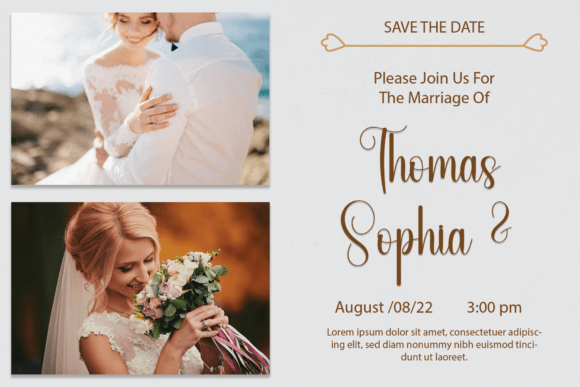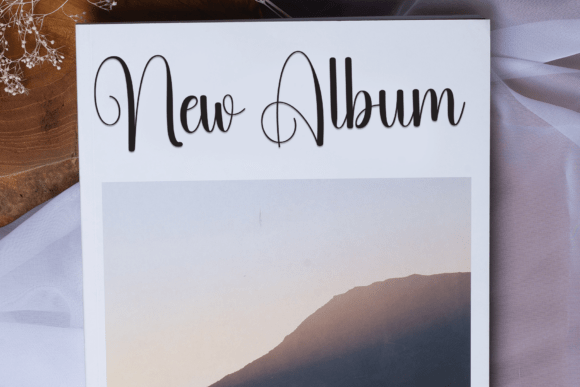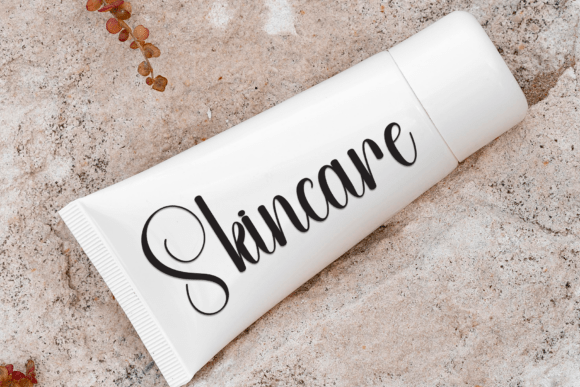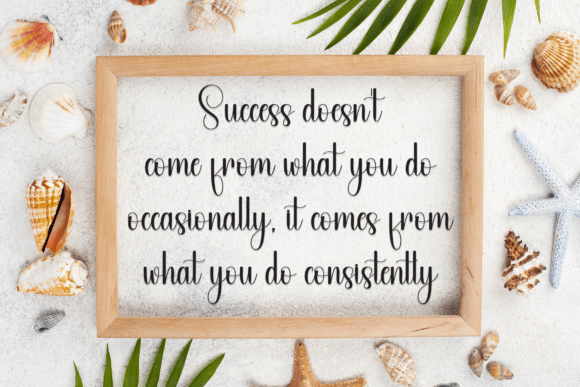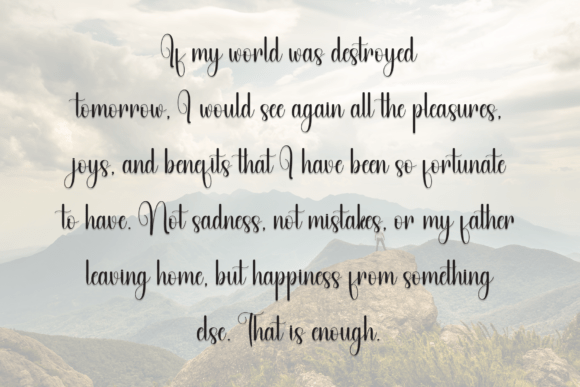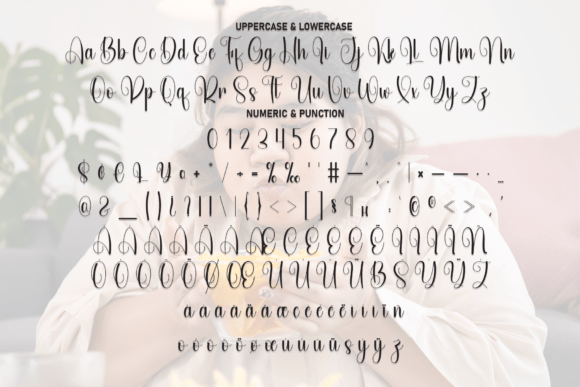
Introducing Chubby Font: The Perfect Choice for Adding a Touch of Whimsy to Your Designs
Are you looking for a font that can add a dash of fun and friendliness to your designs? Look no further than Chubby Font, a charming and heartwarming handwritten display font that’s sure to capture the hearts of your audience. With its adorable and effervescent style, this script personifies a joyful vibe that’s perfect for a variety of design projects.
The Characteristics of Chubby Font
Chubby Font is a beautifully crafted handwritten display font that’s designed to bring a smile to your face. Its unique characteristics include:
- Adorable and effervescent style: Chubby Font has a playful and lively feel that’s sure to add a touch of whimsy to your designs.
- Fun and friendly vibe: This font personifies a joyful and approachable vibe that’s perfect for designs that require a personal touch.
- Elegant and refined: Despite its playful nature, Chubby Font still maintains an air of elegance and sophistication that’s perfect for wedding invitations, cards, and other special occasions.
Perfect Uses for Chubby Font
Chubby Font is an incredibly versatile font that can be used for a wide range of design projects. Here are some of the perfect uses for this charming font:
- Wedding invitations: Add a touch of romance and whimsy to your wedding invitations with Chubby Font.
- Heartfelt cards: Create personalized and heartfelt cards for special occasions like birthdays, anniversaries, and holidays.
- Party invitations: Use Chubby Font to create fun and playful party invitations that set the tone for a memorable celebration.
- Branding and packaging: Add a touch of personality to your brand with Chubby Font, perfect for businesses that want to convey a friendly and approachable vibe.
Why Choose Chubby Font?
With so many fonts to choose from, why should you choose Chubby Font for your next design project? Here are just a few reasons:
- Unique and eye-catching: Chubby Font is a one-of-a-kind font that’s sure to grab attention and leave a lasting impression.
- Easy to read: Despite its playful nature, Chubby Font is still easy to read and understand, making it perfect for designs that require a clear message.
- Customizable: Use Chubby Font to create a unique and personalized design that reflects your brand’s personality and style.
Tips for Using Chubby Font
Here are a few tips for getting the most out of Chubby Font:
- Use it sparingly: Chubby Font is a bold and eye-catching font, so use it sparingly to avoid overwhelming your design.
- Pair it with other fonts: Experiment with pairing Chubby Font with other fonts to create a unique and visually appealing design.
- Experiment with colors: Chubby Font looks great in a variety of colors, so don’t be afraid to experiment and find the perfect hue for your design.
Chubby Font is a charming and heartwarming handwritten display font that’s perfect for adding a touch of whimsy to your designs. With its adorable and effervescent style, this script personifies a fun and friendly vibe that’s sure to capture the hearts of your audience. Whether you’re creating wedding invitations, heartfelt cards, or party invitations, Chubby Font is the perfect choice for designers and crafters who want to add a dash of joy and personality to their designs.